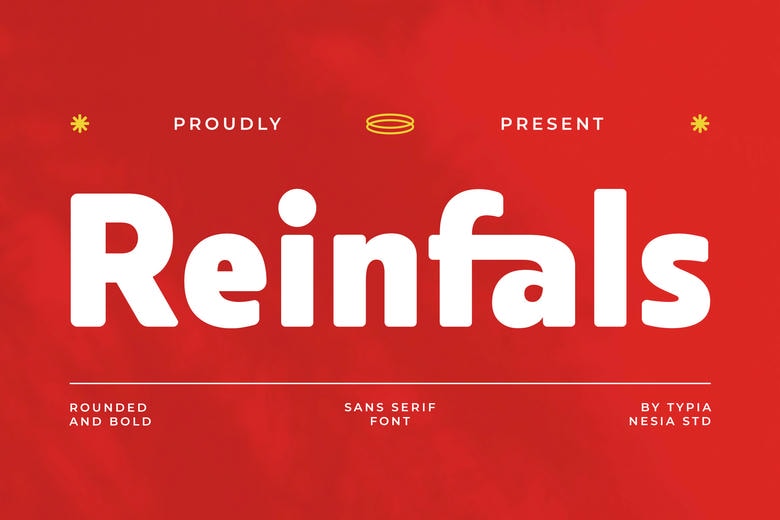
Reinfals Font
Reinfals is a Rounded & Bold Sans Serif Font that integrate an elegant, clean, modern look, friendly for family, kids and young generation. The shape of its letters, fat at bottom and narrower at top, means that it looks honest and friendly, perfect for brands that mean business but don’t want to look stiff or cold. Best for branding, titles, designs on the packaging, logos and labels, magazines, editorals, websites headers, banners, anything that needs rounded but strong look Reinfals is great for industries from technology to life style.
Reinfals Sans Serif Font